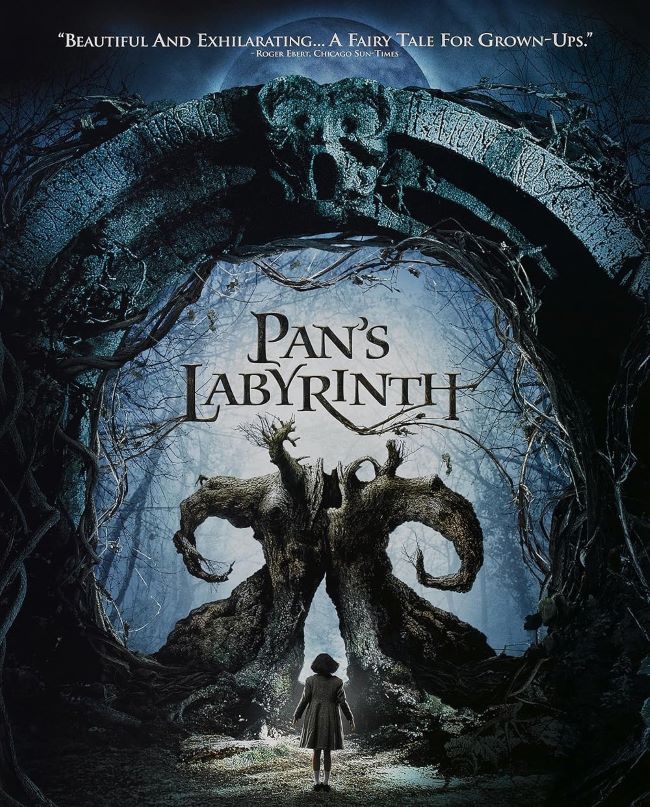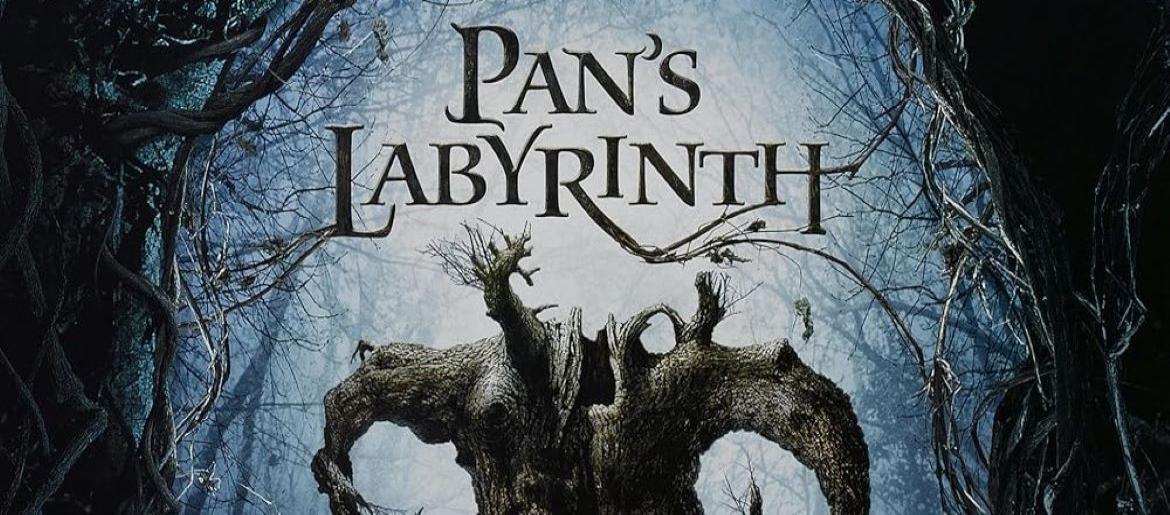
Pan’s Labyrinth Font
The Pan’s Labyrinth Font evokes a mystical, haunting charm, perfectly reflecting the dark fairy-tale world of Guillermo del Toro’s film. Its ornate, gothic-inspired letterforms feel both fragile and unsettling, like inked whispers from another realm. The typeface blends elegance with eeriness, capturing the story’s tension between innocence and horror. Fonts similar in style include Carolingia, Black Chancery, or Unzialish, all offering delicate curves intertwined with a sense of the ancient and otherworldly. Free alternatives can replicate this enchanting yet ominous aesthetic, making it ideal for fantasy-themed projects, dark storybooks, or cinematic titles.
About Pan’s Labyrinth
Released in 2006, *Pan’s Labyrinth* is a dark fantasy film directed by Guillermo del Toro, starring Ivana Baquero, Sergi López, and Maribel Verdú. Set in post-Civil War Spain, it follows a young girl who discovers a mysterious labyrinth inhabited by fantastical and terrifying creatures. Celebrated for its visual storytelling, rich mythology, and haunting atmosphere, the film remains a landmark in modern fantasy cinema, blending beauty, horror, and imagination.